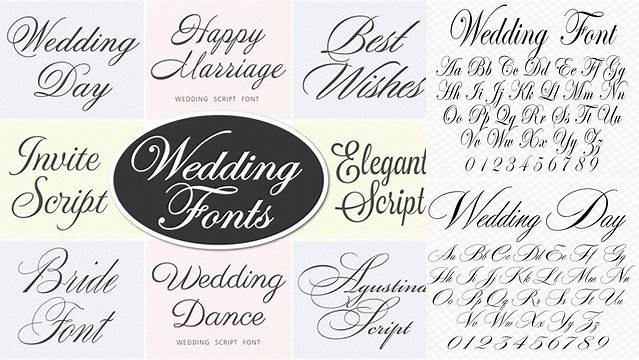
Elegant Cursive Wedding Fonts: A Generator Guide
Are you planning your big day and searching for the perfect cursive wedding fonts to make your invitations truly shine? You've come to the right place! Choosing the right font is crucial for setting the tone and style of your wedding. It's one of the first things your guests will see, so you want it to make a lasting impression. This guide will walk you through everything you need to know about cursive wedding fonts, including how to choose the perfect one, where to find them, and how to use a cursive wedding fonts generator to create stunning invitations. We'll explore various font styles, from classic and traditional to modern and whimsical, ensuring you find the ideal match for your wedding theme. So, grab a cup of coffee, settle in, and let's dive into the world of elegant wedding typography! Remember, the font you choose isn't just about aesthetics; it's about communicating your unique love story and creating a memorable first impression for your guests. We'll also cover practical tips, like ensuring readability and legibility, because while a font might look beautiful, it needs to be easy for your guests to read the important details of your wedding. We'll also touch on the emotional impact of different fonts and how they can evoke certain feelings and expectations. Ultimately, your invitations are a keepsake, a memento of this special time in your life, and the font you choose plays a significant role in that. Let's make sure it's absolutely perfect! So, let's get started on this exciting journey of finding the perfect cursive wedding font for your dream wedding.
Why Cursive Fonts are Perfect for Weddings
So, you might be wondering, why cursive fonts? Well, guys, cursive fonts bring an air of sophistication and romance to any wedding invitation. They evoke feelings of elegance, tradition, and timeless love. Think about it: the flowing strokes and delicate curves mimic the graceful script of handwritten calligraphy, adding a personal and intimate touch to your invitations. Choosing cursive wedding fonts helps to create a sense of occasion and formality, letting your guests know that this is a special event to be celebrated. There's just something inherently romantic about cursive, isn't there? It's like a whispered promise, a gentle embrace captured in ink. Plus, the variety within the cursive family is vast! You can find everything from classic Spencerian scripts to modern calligraphy-inspired fonts, meaning there's a perfect cursive font out there to match any wedding style, whether it's a grand ballroom affair or a rustic outdoor celebration. Cursive fonts aren't just beautiful; they also add a touch of personality to your invitations. The font you choose can reflect your unique style as a couple, giving your guests a glimpse into the atmosphere and aesthetic of your wedding day. It's about creating a cohesive look and feel, from the invitations to the table settings and beyond. And let's be honest, a beautifully designed invitation sets the stage for a truly memorable event. Think of it as the opening act, the first impression that gets your guests excited and eager to celebrate with you. Choosing the right font can be a game-changer, so let's explore the wonderful world of cursive and discover how it can elevate your wedding invitations to the next level. So, get ready to fall in love with cursive fonts all over again! They truly are a timeless choice for wedding invitations, and we're here to help you find the perfect one for your special day. The impact of a well-chosen cursive font goes beyond aesthetics; it's about conveying emotion, creating anticipation, and setting the stage for a celebration of love.
Different Styles of Cursive Wedding Fonts
Okay, let's talk about the fun part: exploring the different styles of cursive wedding fonts! The world of cursive is surprisingly diverse, offering a range of options to suit any wedding theme and personal style. We've got classic scripts that whisper of old-world romance, modern calligraphy-inspired fonts that add a touch of contemporary chic, and even whimsical cursive styles that inject a bit of fun and personality into your invitations. First up, we have the classic scripts. Think elegant Spencerian or Copperplate styles. These fonts are characterized by their flowing lines, delicate flourishes, and timeless appeal. They're perfect for traditional weddings, formal affairs, and couples who appreciate a touch of vintage glamour. Then there are the modern calligraphy-inspired fonts. These fonts blend the beauty of traditional calligraphy with a contemporary edge. They often feature thicker strokes, bolder shapes, and a more relaxed feel, making them ideal for modern weddings, minimalist celebrations, and couples who want a font that's both elegant and stylish. For those who want to add a touch of whimsy and personality, there are the playful cursive fonts. These fonts often feature unique letterforms, quirky details, and a more casual feel. They're perfect for outdoor weddings, rustic celebrations, and couples who want their invitations to reflect their fun-loving personalities. But it doesn't stop there! Within each of these broad categories, there are countless variations and sub-styles. You might find a classic script with a slightly modern twist, or a playful cursive font with a touch of elegance. The key is to explore the options and find a font that truly speaks to you and your partner. Remember, the font you choose is a reflection of your unique style as a couple, so don't be afraid to experiment and try different things. The goal is to find a font that not only looks beautiful but also conveys the overall tone and atmosphere of your wedding day. And don't forget to consider the readability of the font. While a font might be stunning, it's crucial that your guests can easily read the important details of your wedding, such as the date, time, and location. So, let's dive deeper into the specific characteristics of each style and help you find the perfect cursive font for your dream wedding.
How to Choose the Right Cursive Font for Your Wedding
Choosing the right cursive font for your wedding can feel a little overwhelming, but don't worry, we're here to help! It's all about finding a font that not only looks beautiful but also complements your wedding theme and reflects your personal style as a couple. The first thing to consider is your wedding style. Are you planning a formal black-tie affair, a rustic outdoor celebration, or a modern minimalist gathering? The font you choose should align with the overall aesthetic of your wedding. For a formal wedding, a classic script like Spencerian or Copperplate might be the perfect choice. These fonts exude elegance and sophistication, setting the tone for a grand celebration. For a rustic wedding, a more relaxed and slightly whimsical cursive font could be a better fit. Think fonts with imperfect lines, natural-looking strokes, and a touch of personality. These fonts complement the organic and earthy feel of a rustic celebration. And for a modern wedding, a clean and contemporary cursive font is the way to go. Look for fonts with bold shapes, minimal flourishes, and a sleek aesthetic. These fonts add a touch of sophistication without feeling overly traditional. Another crucial factor to consider is readability. While a font might look stunning, it's essential that your guests can easily read the important details of your wedding, such as the date, time, and location. Avoid fonts that are too ornate or have excessively decorative flourishes, as these can be difficult to decipher. The next step is thinking about your personal style. What kind of message do you want to convey with your invitations? Do you want them to feel romantic and timeless, or modern and chic? The font you choose should reflect your personality as a couple. If you're a romantic couple, a classic script might be a perfect choice. If you're a modern and stylish couple, a contemporary cursive font might be a better fit. And if you're a fun-loving and playful couple, a whimsical cursive font could be just what you need. Ultimately, the best way to choose the right cursive font is to experiment and try different things. Don't be afraid to mix and match fonts, play with different sizes and weights, and see what looks best for your invitations. And most importantly, trust your gut! If you love a font, go for it! Remember, your wedding invitations are a reflection of you as a couple, so choose a font that makes you happy and excited to share your special day with your loved ones.
Using a Cursive Wedding Fonts Generator
Now, let's talk about how a cursive wedding fonts generator can be your best friend in this font-finding journey! A font generator is a fantastic tool that allows you to preview different cursive fonts with your own text. This means you can see exactly how your names, wedding date, and other important details will look in various fonts before you commit to one. Cool, right? These generators typically offer a wide range of cursive fonts to choose from, from classic scripts to modern calligraphy styles, and everything in between. Most cursive wedding fonts generator are super user-friendly. You simply type in your desired text, select a font from the available options, and voila! You'll see a preview of your text in that font. You can then experiment with different fonts, sizes, and colors until you find the perfect combination. This is a huge time-saver, especially when you're juggling a million other wedding-planning tasks! Plus, using a font generator allows you to get a sense of the overall look and feel of your invitations before you even start designing them. You can see how different fonts complement each other, how they work with different layouts, and how they impact the overall aesthetic of your invitations. Some font generators even allow you to download the fonts directly, making it easy to use them in your design software or send them to your printer. It's like having a personal font stylist at your fingertips! When using a cursive wedding fonts generator, it's a good idea to try out a few different options and compare them side-by-side. This will help you narrow down your choices and identify the fonts that truly stand out. Pay attention to the readability of the font, the spacing between letters, and the overall visual impact. Remember, the font you choose will be the first impression your guests have of your wedding, so you want to make sure it's a good one! And don't be afraid to get creative! Experiment with different font combinations, colors, and layouts to create a truly unique and personalized invitation. The possibilities are endless! So, ditch the stress and embrace the ease of a cursive wedding fonts generator. It's a fantastic tool that will help you find the perfect font for your big day and make your wedding invitations truly shine.
Where to Find Cursive Wedding Fonts
Okay, so you're ready to find the perfect cursive wedding fonts, but where do you even start looking? Don't worry, we've got you covered! There are tons of amazing resources out there, both online and offline, where you can discover a treasure trove of beautiful cursive fonts for your wedding invitations. One of the most popular options is online font foundries. Websites like MyFonts, Creative Market, and FontSpring offer a vast selection of fonts, including a huge variety of cursive styles. These foundries feature fonts created by talented designers from all over the world, so you're sure to find something unique and special. The great thing about online foundries is that you can easily browse fonts by category, style, and even price. Many foundries also offer free trial versions of their fonts, so you can test them out before you commit to a purchase. Another fantastic resource is design marketplaces. Websites like Etsy and Creative Market are home to independent designers who sell their fonts, graphics, and other design assets. This is a great place to find unique and handcrafted cursive fonts that you won't find anywhere else. Plus, when you purchase from a design marketplace, you're supporting independent artists and small businesses. If you're looking for free cursive fonts, there are also several websites that offer a selection of free fonts. Websites like Google Fonts, Font Squirrel, and DaFont have a variety of free cursive fonts available for download. However, it's important to note that free fonts may not always be of the same quality as paid fonts, and they may have licensing restrictions. So, be sure to read the fine print before using a free font for your wedding invitations. In addition to online resources, you can also find cursive fonts in desktop publishing software like Adobe InDesign and Microsoft Word. These programs typically come with a selection of pre-installed fonts, including some beautiful cursive options. You can also purchase additional fonts to install on your computer and use in your design software. Ultimately, the best place to find cursive wedding fonts depends on your budget, your design needs, and your personal preferences. Take some time to explore the different resources available and find the fonts that truly speak to you and your partner. Happy font hunting!
Tips for Using Cursive Fonts Effectively
So, you've found the perfect cursive font for your wedding invitations – fantastic! But before you start designing, let's talk about some tips for using cursive fonts effectively. Just like any design element, cursive fonts need to be used thoughtfully to create a beautiful and legible invitation. First and foremost, readability is key. While a font might look stunning, it's essential that your guests can easily read the important details of your wedding, such as the date, time, and location. Avoid using cursive fonts for large blocks of text, as they can be difficult to read in large quantities. Instead, use cursive fonts sparingly for headings, names, and other key elements. Pair them with a simpler, more legible font for the body text. Another important tip is to consider the spacing between letters and words. Cursive fonts often have intricate letterforms and flowing connections, so it's crucial to ensure that the spacing is just right. Too much spacing can make the font look disjointed, while too little spacing can make it look cluttered and difficult to read. Most design software allows you to adjust the kerning (spacing between letters) and the tracking (spacing between words), so play around with these settings until you achieve the perfect balance. It's also important to think about the color and contrast of your font. Dark cursive fonts on a light background are generally the easiest to read, but you can also experiment with different color combinations to create a unique look. Just be sure to choose colors that complement each other and provide enough contrast for readability. When using cursive fonts, less is often more. Avoid using too many different cursive fonts in your design, as this can make your invitation look cluttered and confusing. Stick to one or two cursive fonts and pair them with a simpler font for a clean and cohesive look. Finally, don't be afraid to experiment and have fun! The world of cursive fonts is vast and diverse, so there's plenty of room for creativity. Try out different fonts, sizes, and layouts until you find a combination that you love. Remember, your wedding invitations are a reflection of your personal style, so choose fonts that make you happy and excited to share your special day with your loved ones. By following these tips, you can use cursive fonts effectively to create stunning wedding invitations that will impress your guests and set the tone for a memorable celebration.